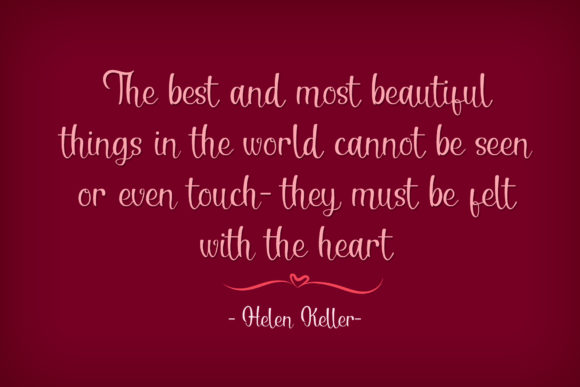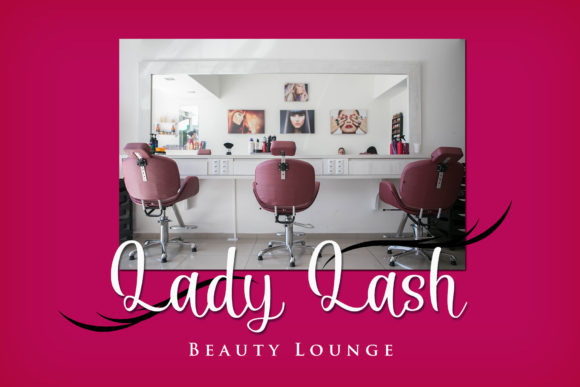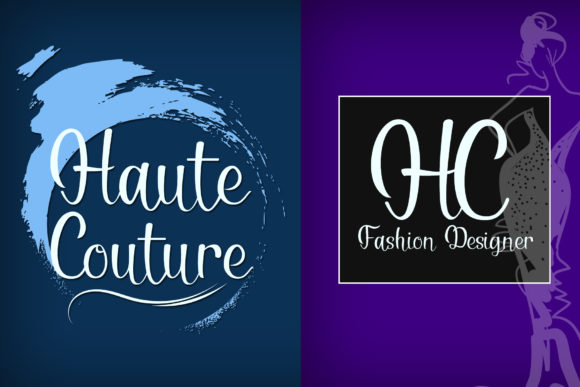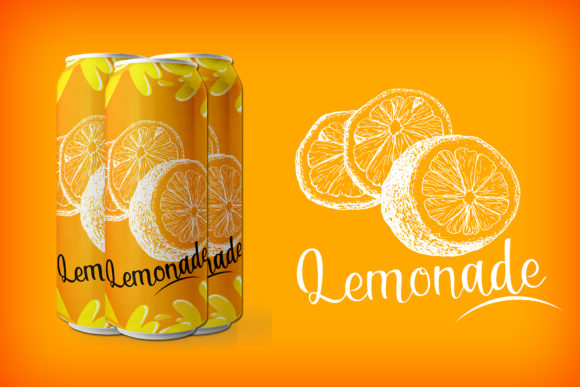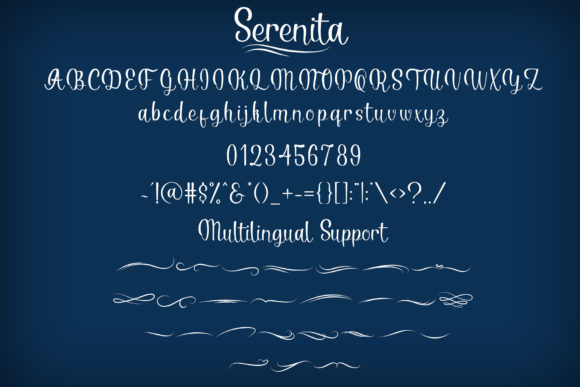
Introduction to Serenita Font
As a designer, have you ever found yourself staring at a blank canvas, searching for the perfect font to bring your creative vision to life? It’s that moment when the perfect font can make all the difference. And for many designers, that perfect font is the Serenita Font. This simple, clean, and casual script font has been a game-changer for many design projects.
The Serenita Font is more than just a design element – it’s a way to add a touch of elegance and sophistication to any project. With its authentic elements and high-quality design, it’s no wonder why designers love using it for their creative projects. Whether you’re working on a personal project or a professional design, the Serenita Font is a valuable resource that can take your designs to the next level.
Key Features of Serenita Font
- High-quality design for creative projects: The Serenita Font is perfect for designers and artists looking for a unique and elegant font to enhance their work.
- Unique characteristics: The Serenita Font features a distinctive, cursive script with a touch of elegance, setting it apart from other fonts.
- Perfect for digital and print projects: The font’s versatility makes it suitable for a wide range of creative projects, from digital designs to print materials.
Honest Review: Serenita Font
As a designer, I’ve had the pleasure of working with various fonts for my creative projects, and I’m excited to share my thoughts on the Serenita Font. ✨ One of the standout features of this font is its high-quality design, making it perfect for any design resource that requires a touch of elegance.
- Unique and elegant design
- High-quality typography
However, as with any font, there are some limitations to consider. ⚠️ The Serenita Font may not be the best choice for bold or dramatic designs, as it’s more suited for subtle and sophisticated projects.
Overall, I’m impressed with the Serenita Font. It’s a solid addition to any designer’s toolkit, and I appreciate the transparent background option, which makes it easy to use in various design scenarios. Whether you’re working on a free download or a paid project, the Serenita Font is definitely worth considering.
Serenita Font
For the best results, use the Serenita Font in conjunction with other high-quality design resources. Experiment with different font sizes, colors, and styles to create a unique and visually appealing design.
The Serenita Font is perfect for a variety of creative projects, including blog posts, social media graphics, and presentations. Its transparent background makes it easy to use in combination with other design elements.